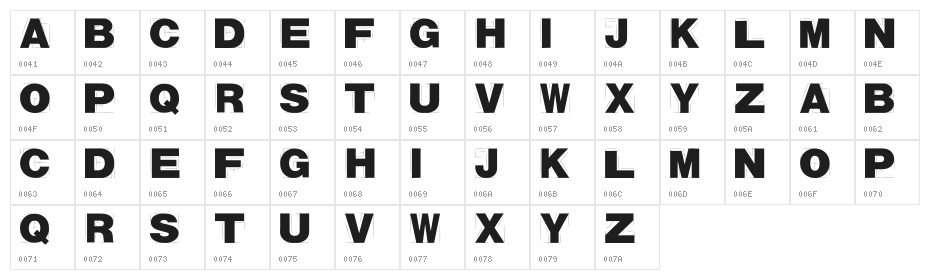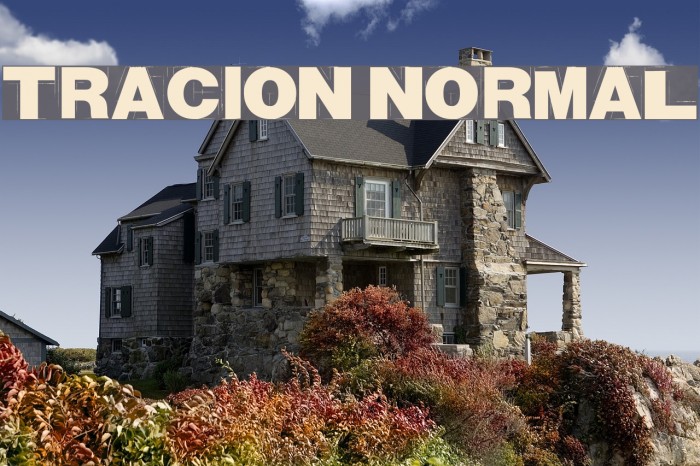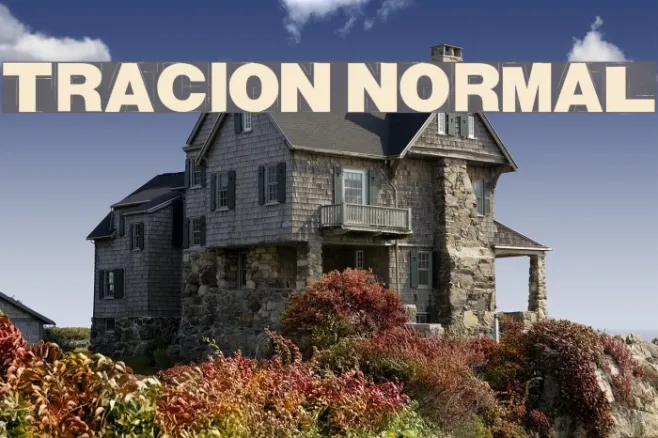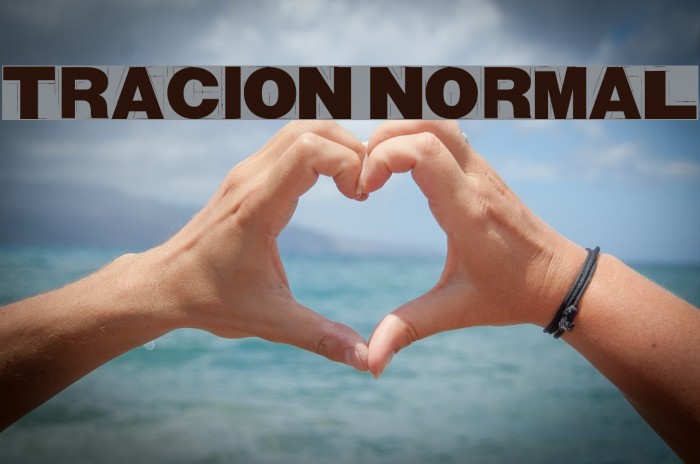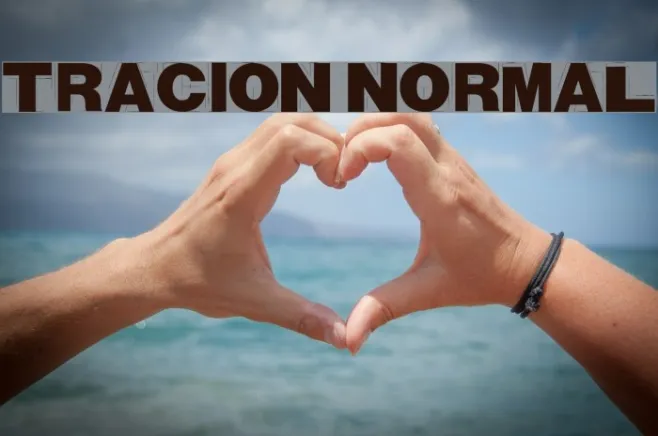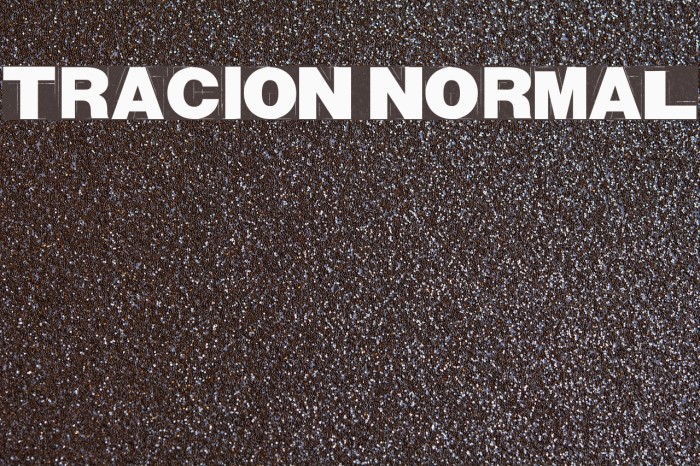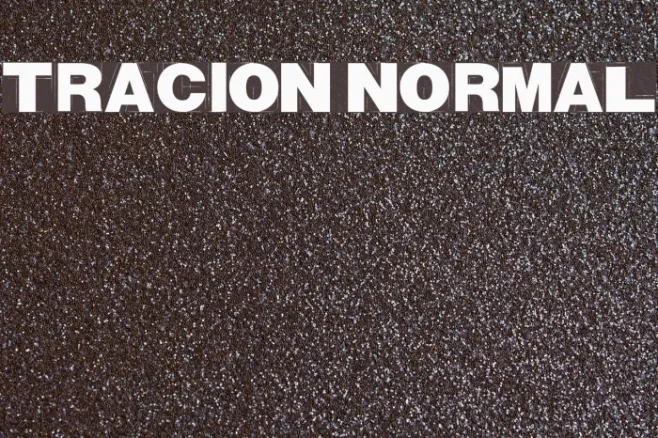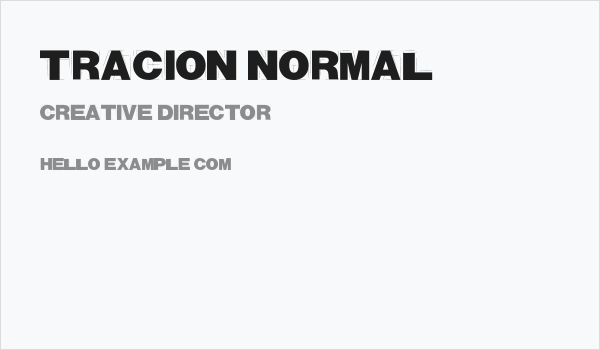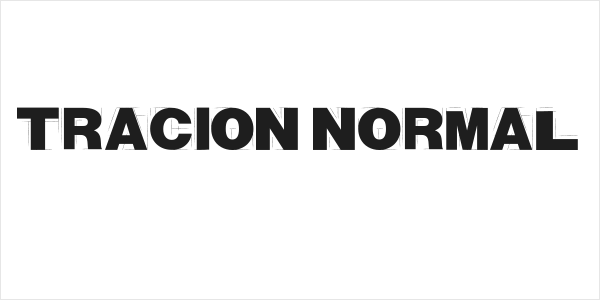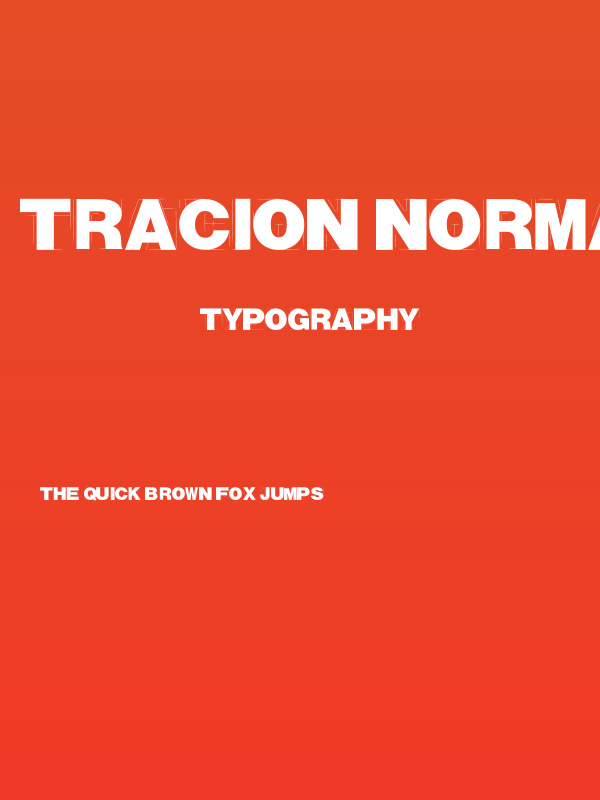
Tracion Normal Font
Tracion Normal Description
This font is characterized by its bold and impactful design, featuring thick, uniform strokes that convey strength and stability. The letters are evenly spaced, providing a balanced and cohesive appearance. The uppercase letters are prominent and assertive, making them ideal for attention-grabbing headlines or titles. The overall style is modern and clean, with a straightforward approach that emphasizes readability and clarity. The font's simplicity and boldness make it versatile for various design applications, from branding to advertising.
| Proposed Projects | Ideal for branding, advertising, headlines, and any project requiring a strong visual impact. |